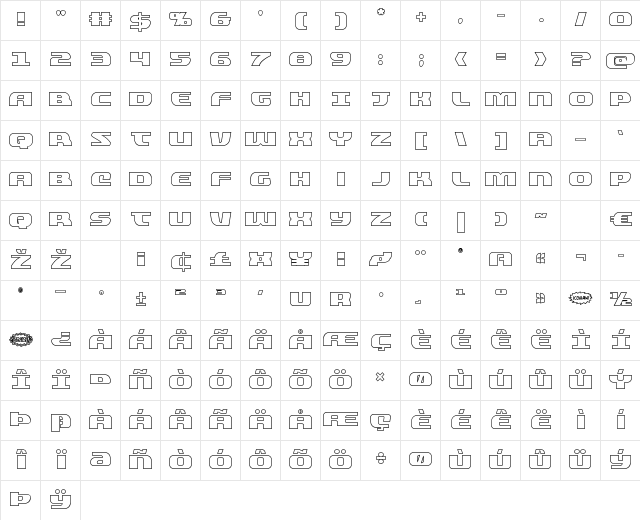
Quickening Outline Regular Free Font
Quickening Outline Regular
Design Context for Quickening Outline
Quickening Outline is built around its visual character rather than neutral utility - its distinctive forms are designed to make an impression at display sizes.